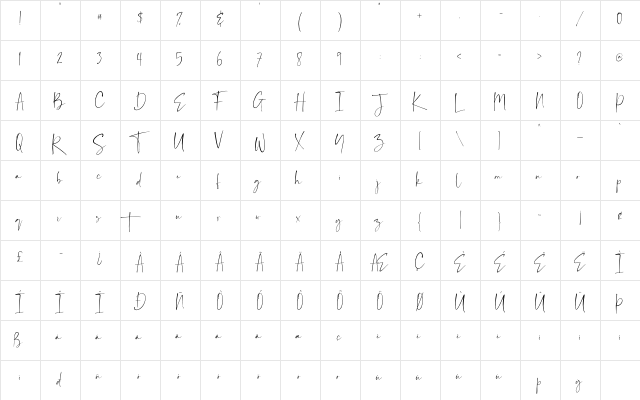
Balnes Regular
| Designer | Ef Studio |
Design Context for Balnes Typeface
Balnes is a composed and adaptable typeface that performs quietly and consistently across a wide range of design contexts.